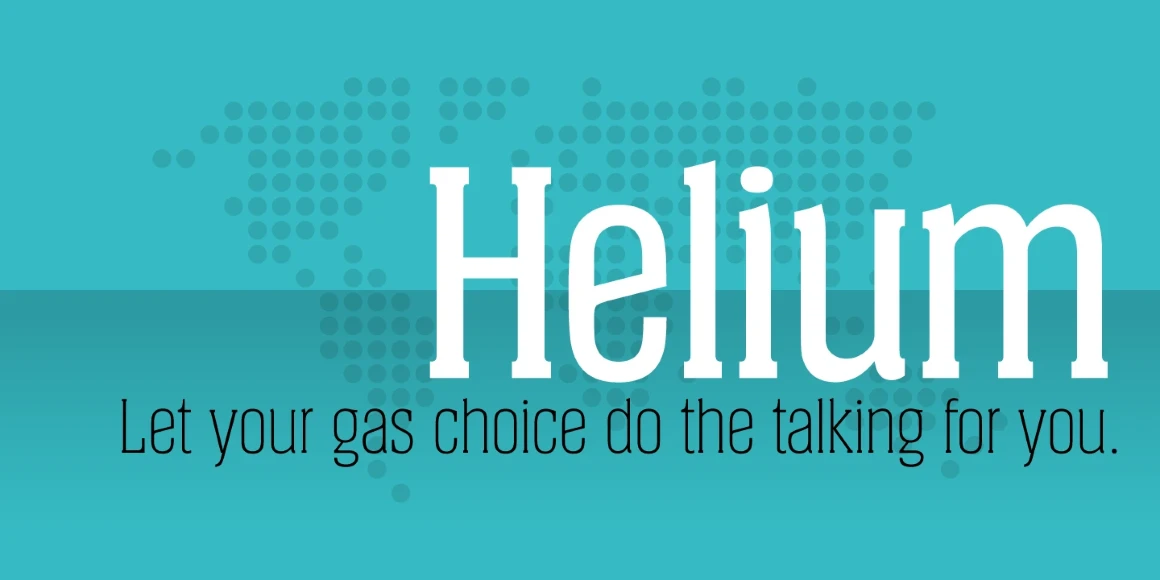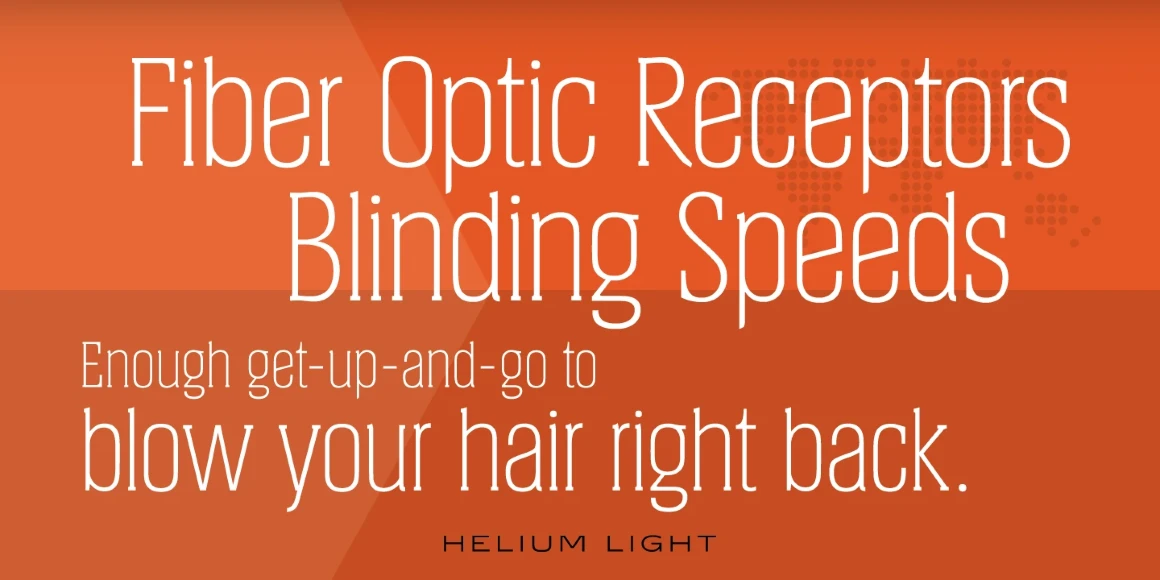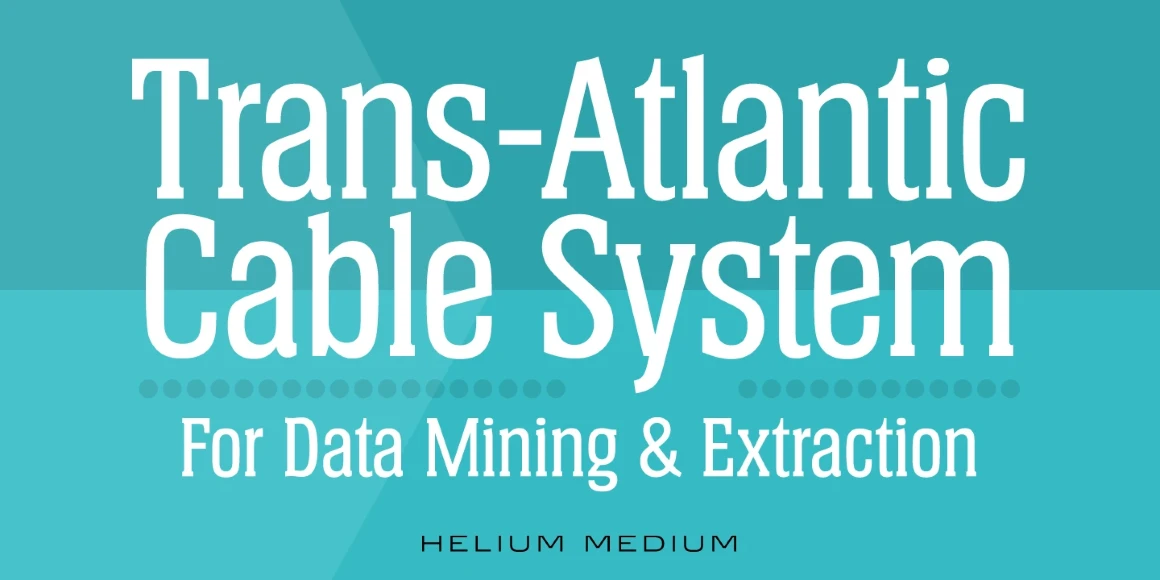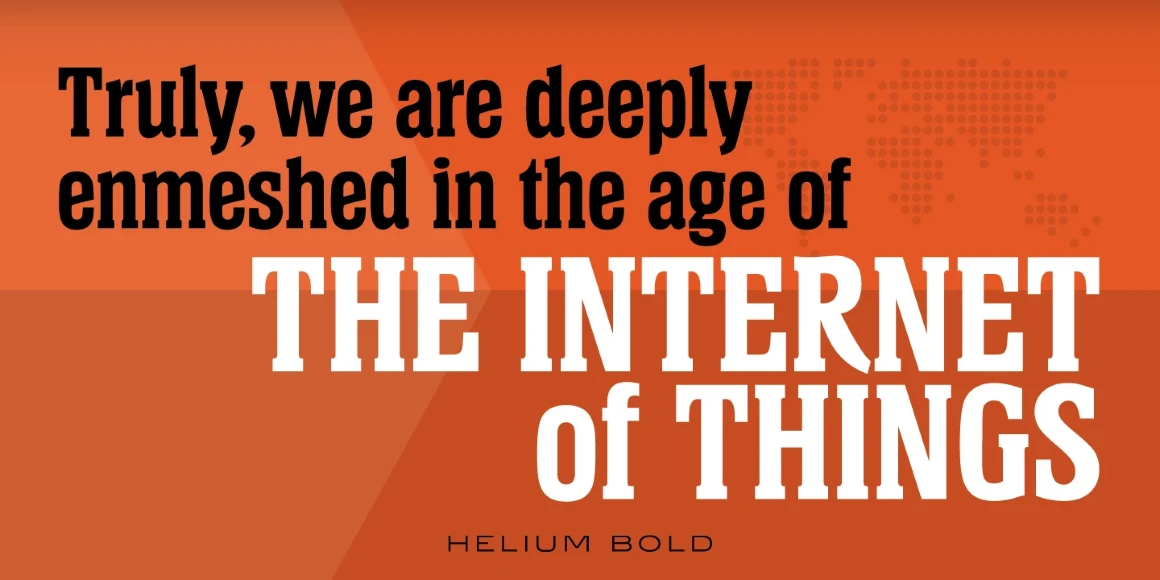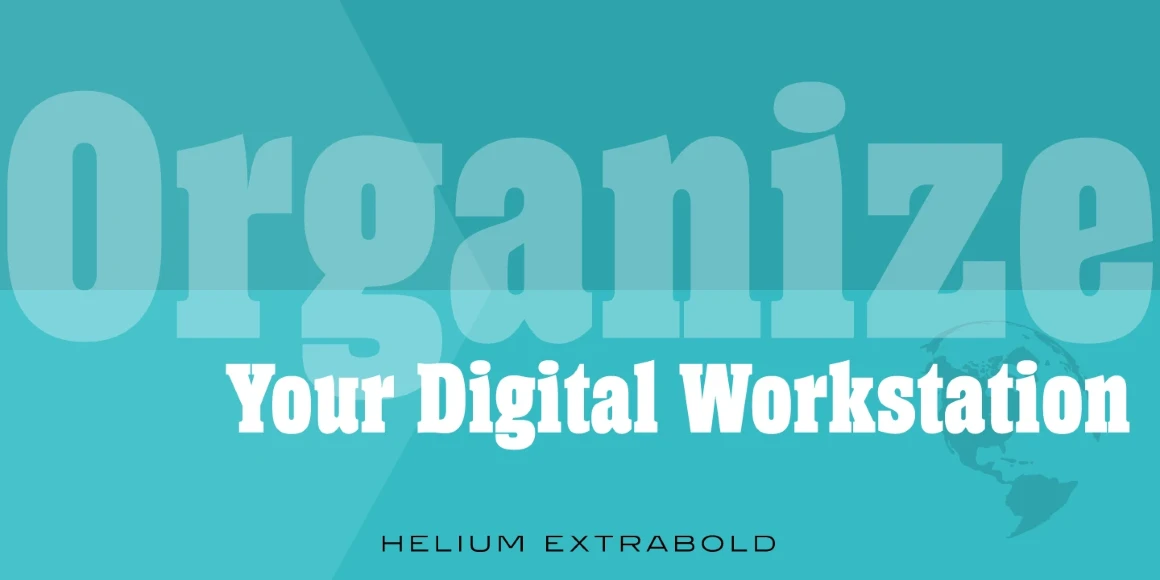
Helium is a condensed serif font family, exclusively licensed from the Quick Brown Fox (QBF) Collection, Germany. It was completely redesigned and produced by Steve Jackaman (ITF) in 1997. Helium is geometric in nature, and shares stylistic similarities with an Egyptian glyphic typeface. It sports a modern collegiate or corporate feel. Whether it be paragraph, subhead, or display size, Helium is always sleek and attractive.